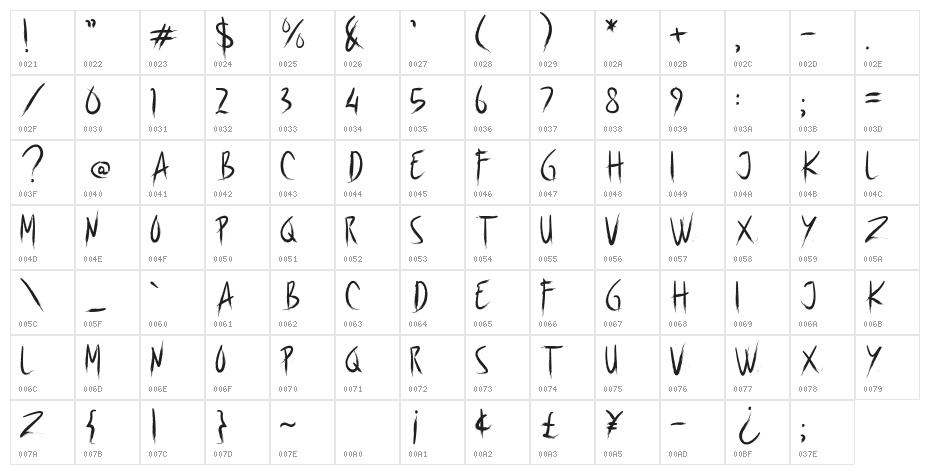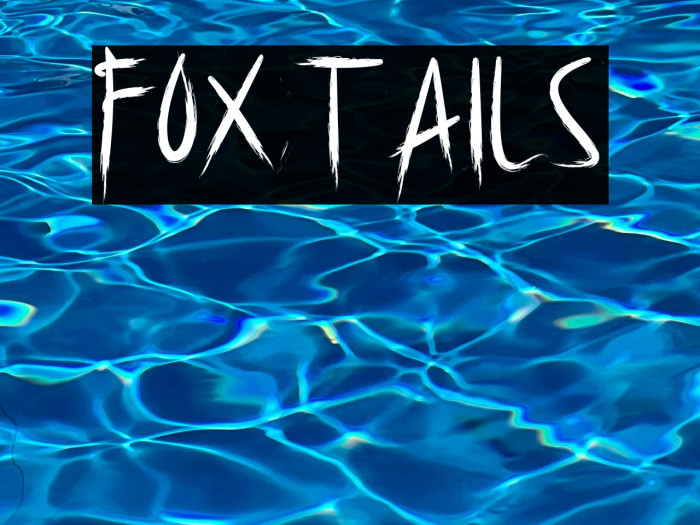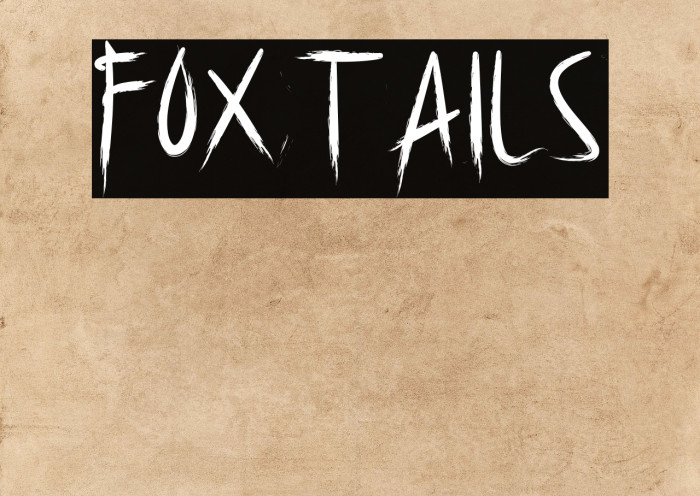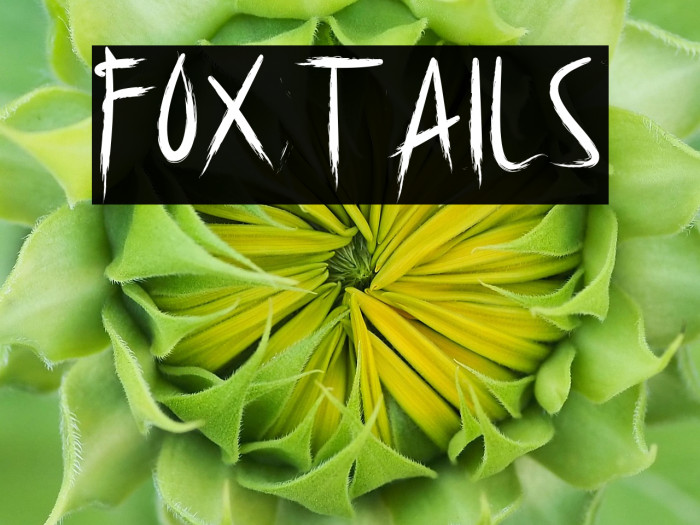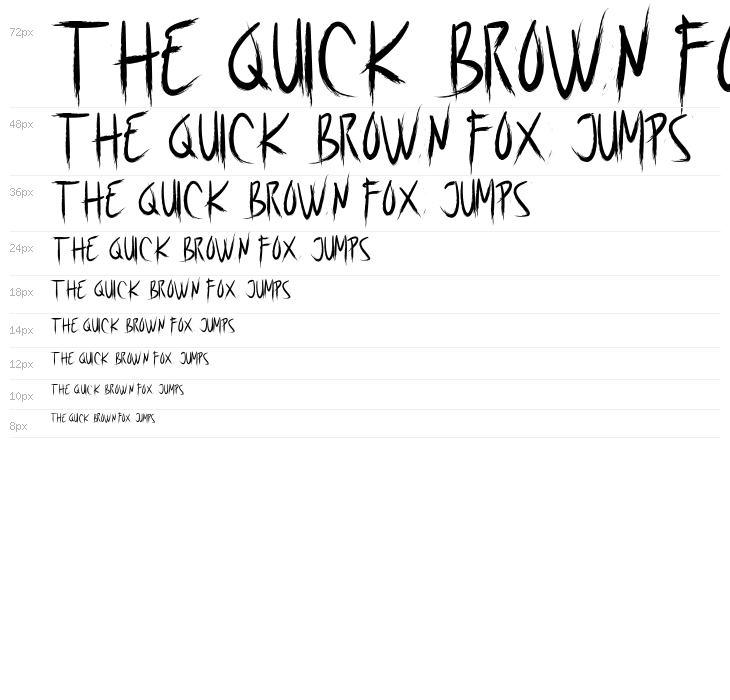
Foxtails Font
Foxtails Description
This font exudes a dynamic and energetic style, characterized by its brush-like strokes that give it a raw and expressive appearance. The letters are crafted with varying thickness, creating a sense of movement and spontaneity. The uppercase and lowercase characters maintain a consistent style, with sharp edges and pointed ends that add to the font's edgy and artistic feel. The numbers and special characters are equally expressive, maintaining the same brush-stroke aesthetic. This font is ideal for projects that require a bold and artistic touch, making it perfect for creative designs that aim to capture attention and convey a sense of individuality.
| Overall Style | Artistic, Expressive |
| Use Case | Headlines, Posters, Creative Branding |
| Proposed Projects | Ideal for artistic projects, posters, album covers, and branding that require a bold, creative touch. |